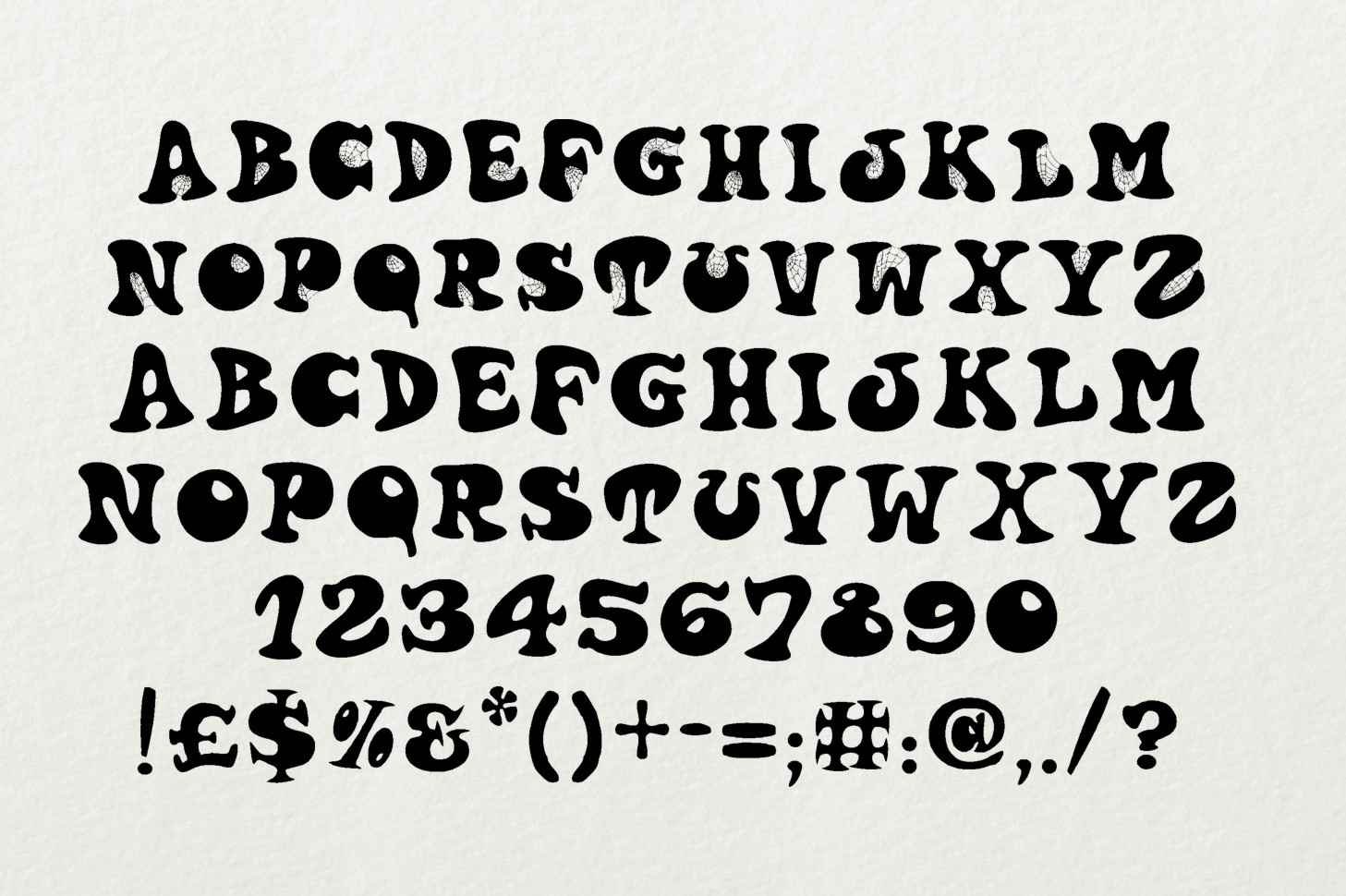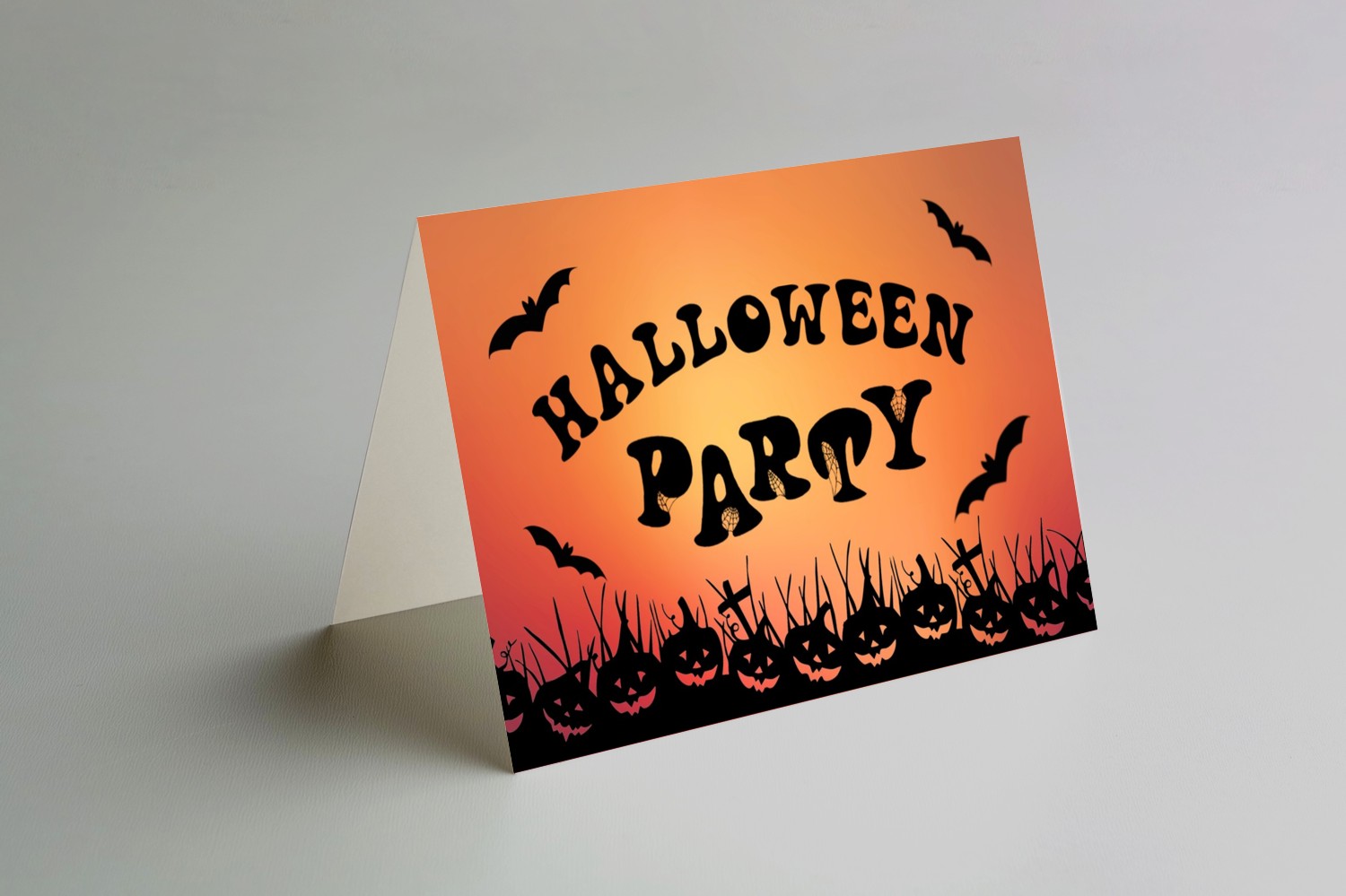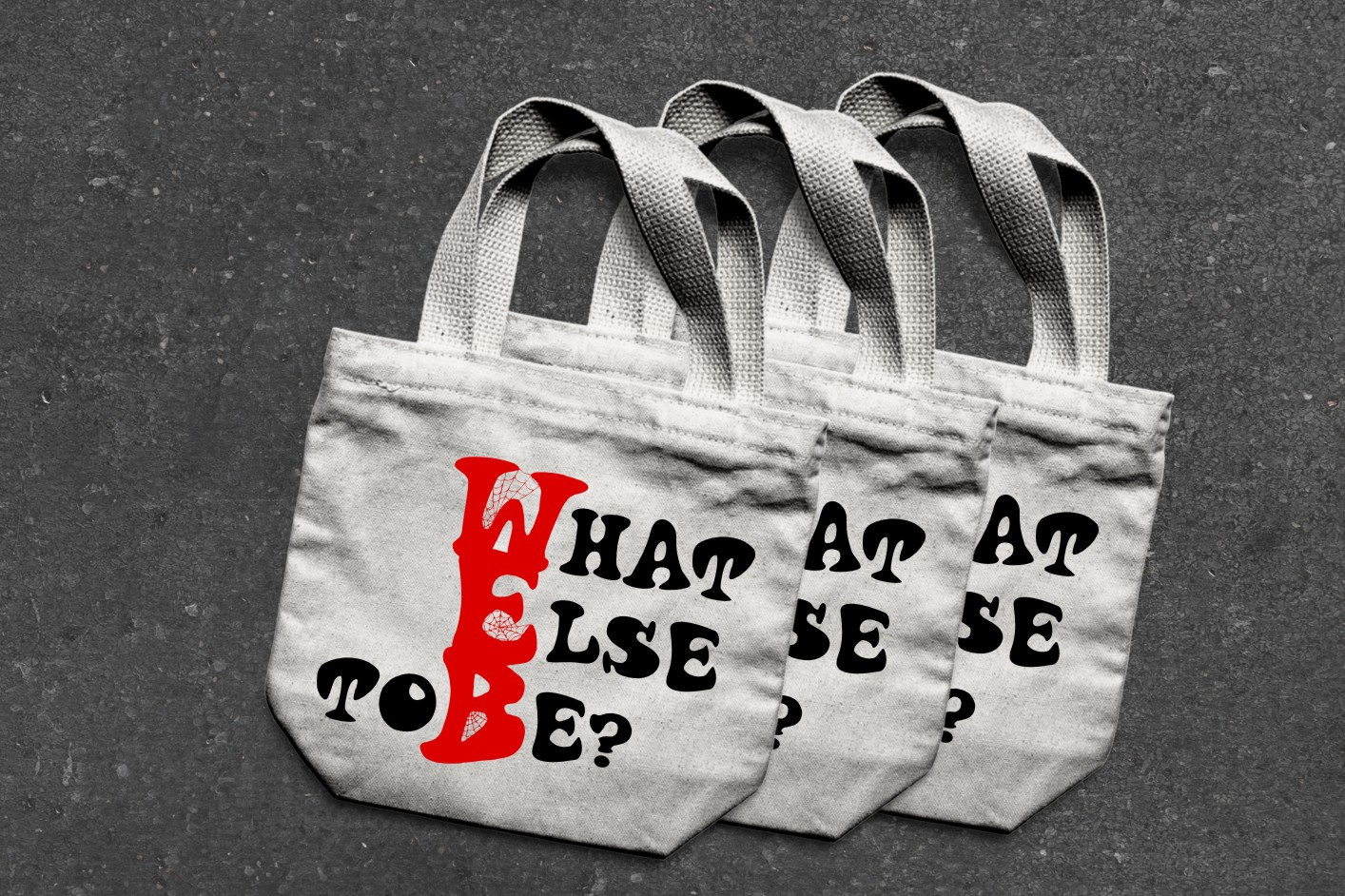
Harty Font: The Unique and Creative Choice for Designers and Crafters
When it comes to typography, there are countless font options available to designers and crafters. However, one font that stands out from the rest is Harty. This distinctive font is known for its simple yet elegant lowercase letters and intricate uppercase letters that resemble spiderwebs. In this article, we’ll take a closer look at Harty font, its features, and how it can be used to add a touch of uniqueness to your designs.
What is Harty Font?
Harty font is a one-of-a-kind typeface that combines simplicity with intricacy. The lowercase letters are clean and straightforward, making them perfect for body text and other applications where readability is key. On the other hand, the uppercase letters are where Harty truly shines. These letters are designed to resemble spiderwebs, with delicate lines and patterns that add a touch of whimsy and elegance to any design.
Key Features of Harty Font
So, what makes Harty font so special? Here are a few key features that set it apart:
- Simple lowercase letters: The lowercase letters in Harty font are simple, yet elegant. They’re perfect for use in body text, headings, and other applications where readability is important.
- Intricate uppercase letters: The uppercase letters in Harty font are where the magic happens. These letters are designed to resemble spiderwebs, with delicate lines and patterns that add a touch of whimsy and elegance to any design.
- Unique and creative: Harty font is unlike any other font out there. Its unique combination of simple and intricate letters makes it a great choice for designers and crafters looking to add a touch of personality to their work.
Uses for Harty Font
So, how can you use Harty font in your designs? Here are a few ideas to get you started:
- Headings and titles: The uppercase letters in Harty font make it perfect for use in headings and titles. Add a touch of elegance and whimsy to your designs with this unique font.
- Invitations and announcements: Harty font is a great choice for invitations, announcements, and other formal documents. The intricate uppercase letters add a touch of sophistication and elegance.
- Branding and packaging: If you’re looking to create a unique brand identity, Harty font can help. The simple lowercase letters and intricate uppercase letters make it a great choice for logos, packaging, and other branding materials.
Tips for Using Harty Font
Here are a few tips to keep in mind when using Harty font:
- Use it sparingly: While Harty font is beautiful, it can be overwhelming if used too much. Use it sparingly to add a touch of elegance and whimsy to your designs.
- Pair it with a simple font: To get the most out of Harty font, pair it with a simple font for body text. This will help to create contrast and make your designs more readable.
- Experiment with different sizes: Don’t be afraid to experiment with different sizes when using Harty font. The intricate uppercase letters look beautiful in large sizes, while the simple lowercase letters work well in smaller sizes.
In conclusion, Harty font is a unique and creative choice for designers and crafters. Its simple lowercase letters and intricate uppercase letters make it perfect for adding a touch of elegance and whimsy to any design. Whether you’re creating headings and titles, invitations and announcements, or branding and packaging, Harty font is a great choice. So why not give it a try and see what you can create?